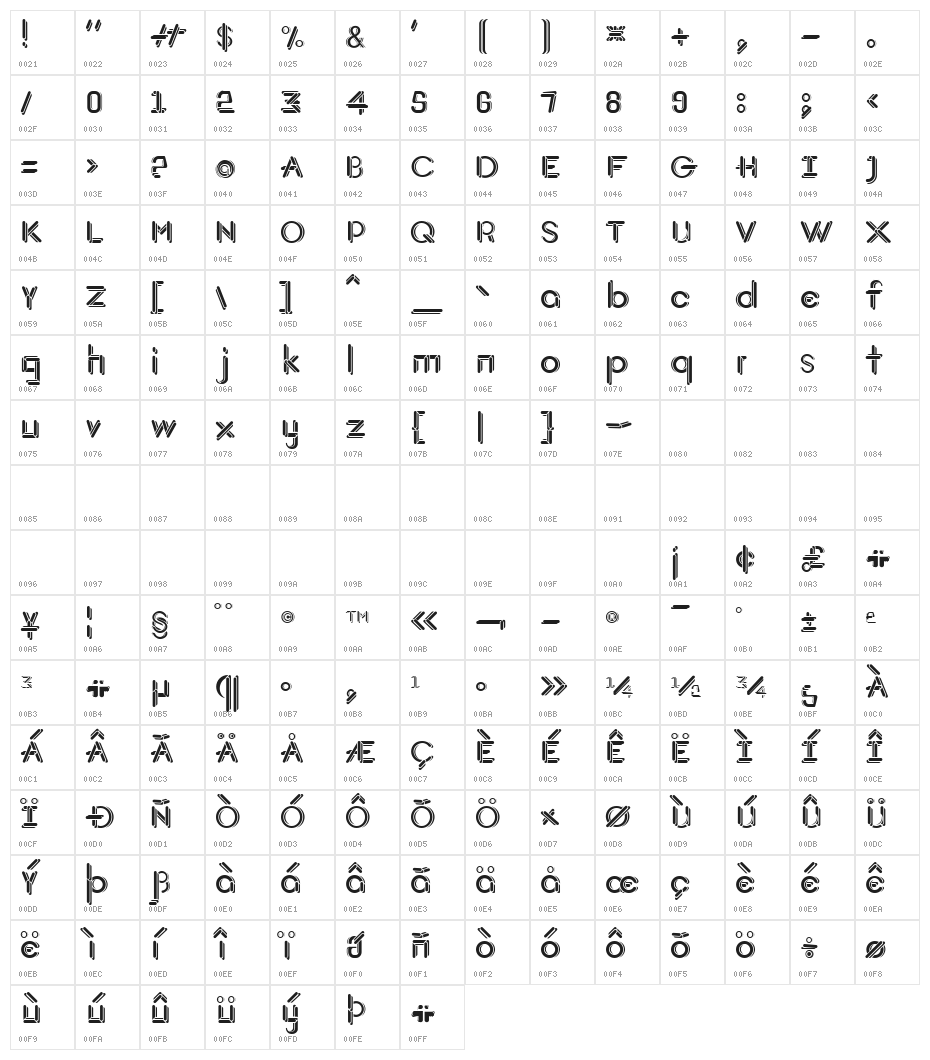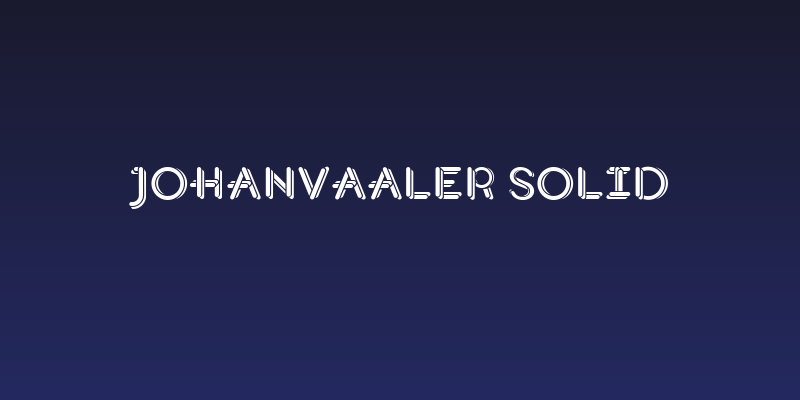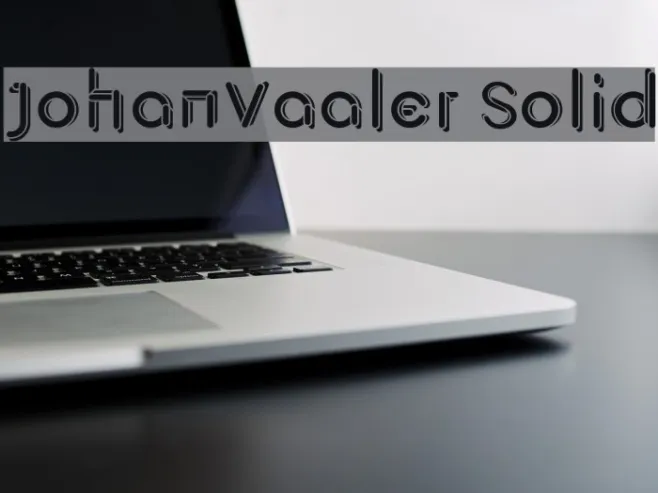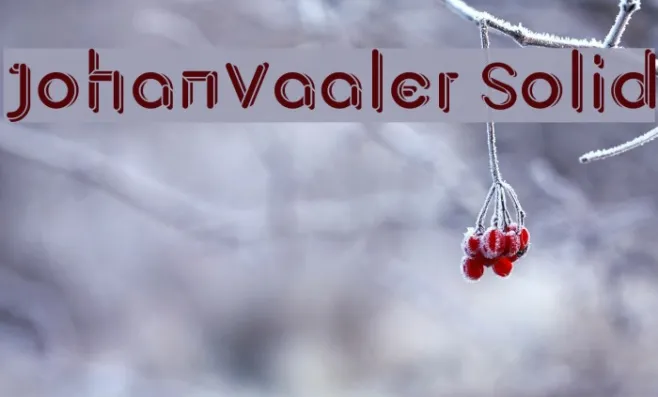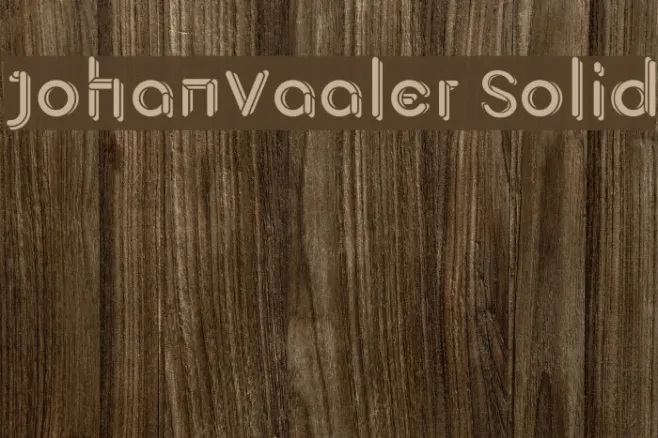
JohanVaaler Solid Font
JohanVaaler Solid Description
This font features a unique and modern design with a three-dimensional effect created by bold, parallel lines that form each character. The uppercase and lowercase letters maintain a consistent style, with angular edges and geometric shapes. Numbers and special characters follow the same design principles, ensuring uniformity across all glyphs. The font's distinct appearance makes it stand out, ideal for creative and eye-catching designs.
| Proposed Projects | Ideal for branding, posters, and digital artwork where a striking and modern aesthetic is desired. |